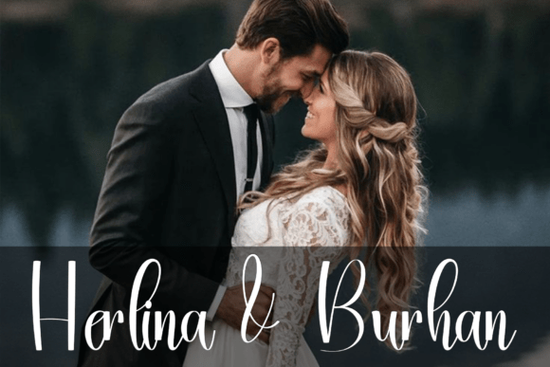
If you’re looking for a playful, cheerful typeface to bring holiday projects to life, the Bubble Font is worth a closer look. It’s got that nostalgic, hand-drawn charm that feels right at home on greeting cards, gift tags, or even custom wrapping paper. The rounded letterforms and decorative swirls give it a festive bounce perfect when you want your text to feel warm and inviting without being too formal.
What makes this font especially handy is its PUA encoding. That means all the special characters, ligatures, and alternate glyphs are easy to access no digging through glyph panels or wrestling with font software. Whether you’re using Silhouette Studio, Cricut Design Space, or Adobe Illustrator, everything you need is right there once you install it.
What kinds of projects work best with Bubble Font?
This isn’t a font for corporate reports or minimalist branding. It shines in contexts where fun, whimsy, and personality matter. Think:
- Holiday cards Pair it with glitter textures or foil accents for that extra sparkle.
- Party invites Birthdays, baby showers, or New Year’s Eve the bubbly style fits them all.
- Custom gift tags Hand-lettered vibes without the hand-lettering effort.
- Wall art or decals Especially for kids’ rooms or seasonal decor.
- Print-on-demand products Mugs, tote bags, or tea towels with phrases like “Merry & Bright” or “Let it Snow.”
If you’ve enjoyed fonts like The Blendhes or Beloved Script for their casual elegance, you’ll find Bubble Font brings a different kind of energy more bouncy, more joyful, and full of movement.
How does it compare to other script fonts on Creative Fabrica?
It’s not trying to be elegant or calligraphic. Fonts like Fantastic or Family Minimalist lean into clean lines or modern brushwork. Bubble Font, by contrast, leans into nostalgia. It reminds you of candy canes, snow globes, and handwritten notes from childhood Christmases.
That said, it still holds up well in digital formats. The spacing is generous, and the letters don’t get tangled which can be an issue with overly ornate script fonts. If you’re working on layered designs or combining text with illustrations, you won’t have to fight with kerning as much as you might expect.
Is it beginner-friendly?
Absolutely. Even if you’re new to design software or haven’t worked with decorative fonts before, Bubble Font doesn’t require advanced skills. Install it like any other font, open your favorite program, and start typing. The alternates and ligatures show up automatically in most apps that support OpenType features so you get variety without complexity.
You don’t need to know what “PUA encoded” means to use it effectively. Just know that all the little extras swashes, flourishes, quirky letter variations are built right in and ready to go.
Where can I see examples or try it out?
One thing to note: because of its decorative nature, it works best at medium to large sizes. Tiny text might lose some of its charm, so avoid using it for fine print or body copy. Stick to headlines, titles, labels, or short phrases where each letter can breathe and show off its personality.
Quick tips before you download
- Pair wisely Combine with a clean sans-serif for contrast. Let Bubble Font be the star, not the whole cast.
- Use color Pastels, metallics, or classic red-and-green combos make it pop even more.
- Scale up Don’t shrink it down. This font loves space.
- Check licensing Make sure your intended use (Etsy shop, client work, etc.) is covered under your license tier.
Whether you’re crafting holiday gifts, building a seasonal product line, or just adding a little magic to your personal projects, this font delivers charm without fuss. And if you’re already a fan of expressive, character-rich typefaces, it’s a natural addition to your toolkit especially when paired thoughtfully with fonts you already love.